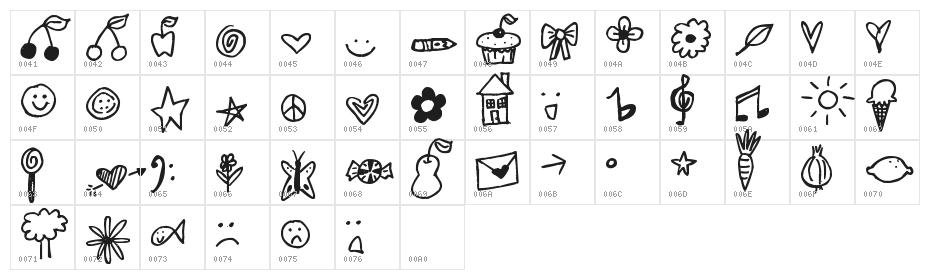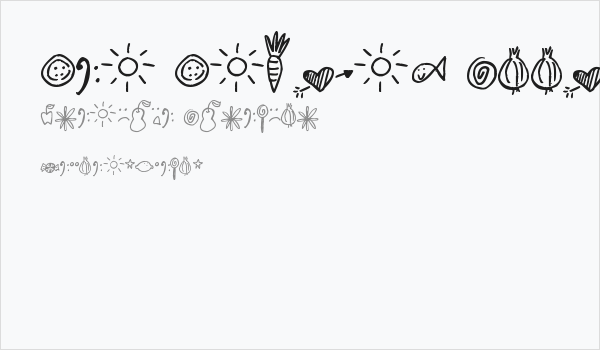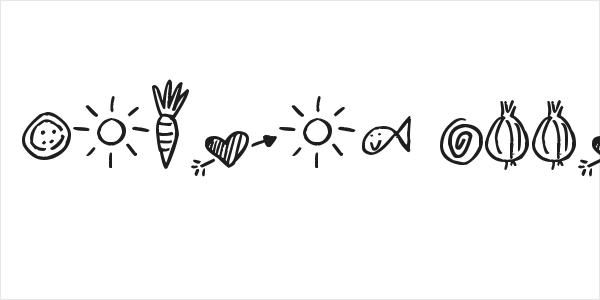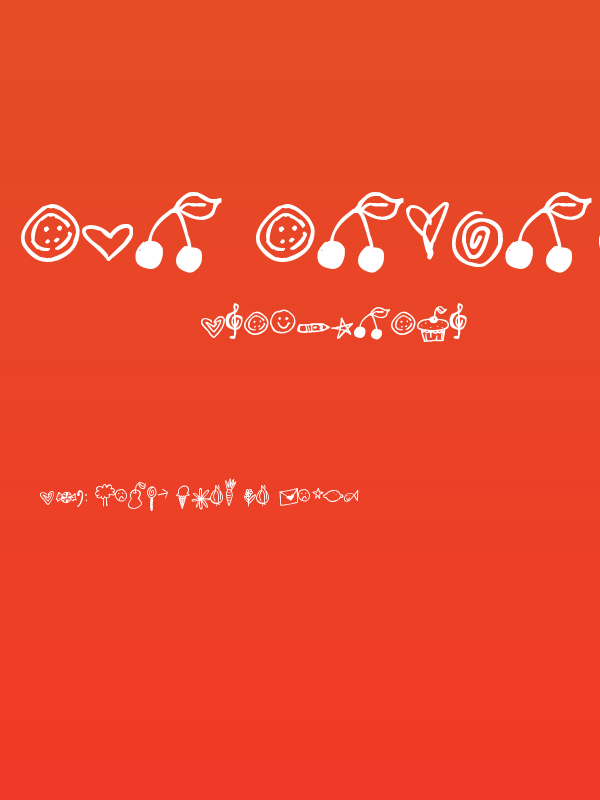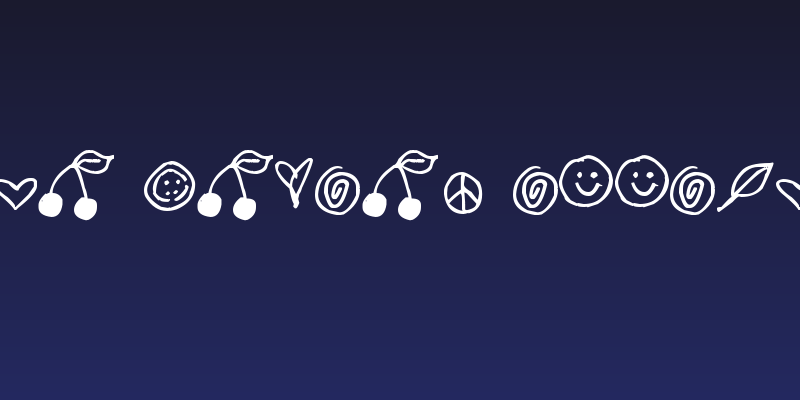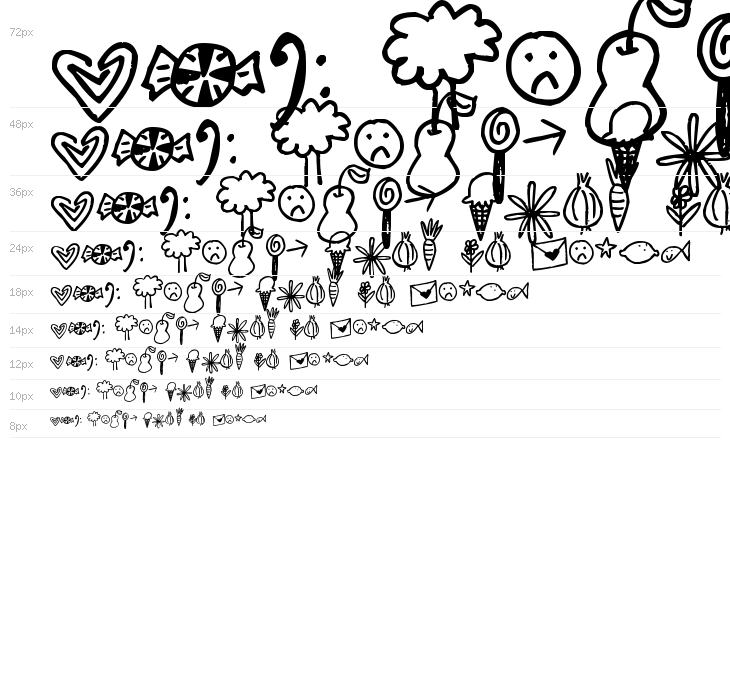
Pea Panda's Doodles Font
Pea Panda's Doodles Description
This is a playful and whimsical collection of doodle-style illustrations, featuring a variety of charming and quirky icons. The designs include cherries, apples, hearts, smiley faces, cupcakes, bows, flowers, stars, peace signs, musical notes, and more. Each element is hand-drawn with a casual, carefree style, making them perfect for adding a touch of fun and creativity to any project. The doodles are characterized by their bold lines and simple, yet expressive forms, capturing a sense of joy and spontaneity. These illustrations are ideal for projects that aim to convey a lighthearted and imaginative tone.
| Overall Style | Whimsical |
| Use Case | Decorative elements, Illustrations |
| Proposed Projects | Ideal for children's books, greeting cards, scrapbooking, playful branding, and creative social media graphics. |